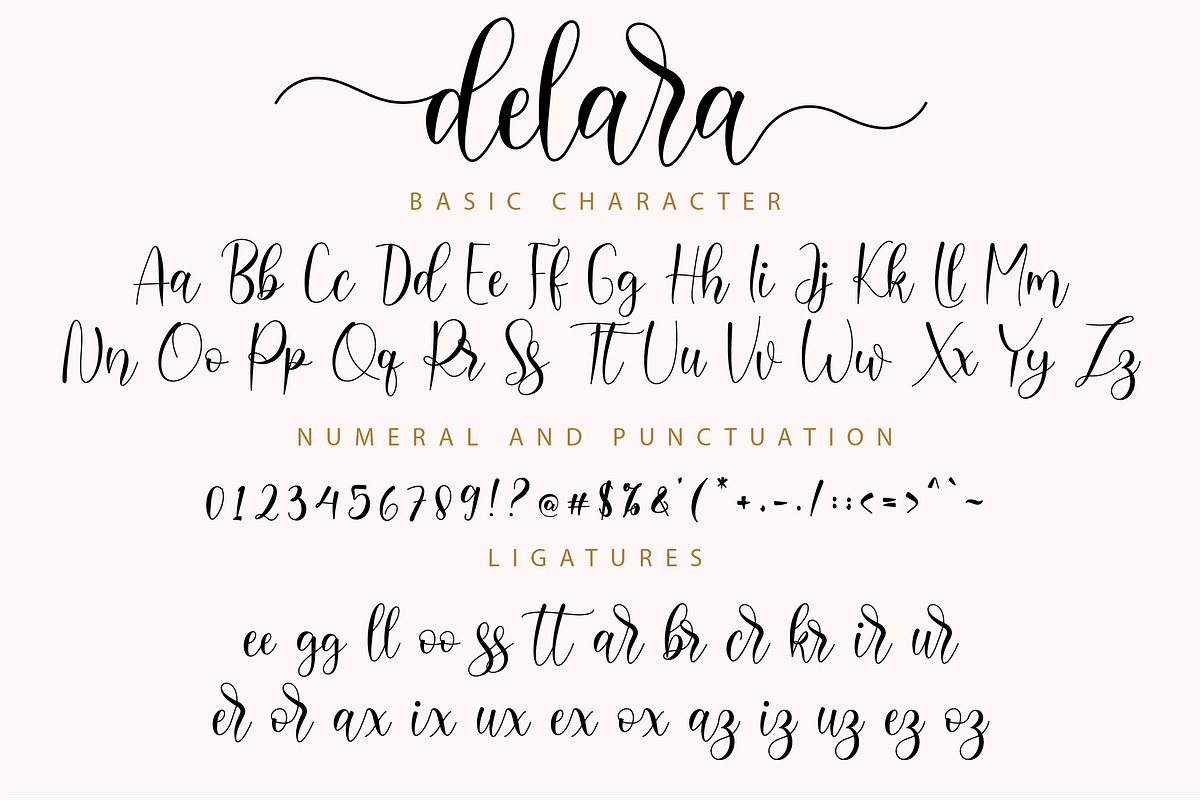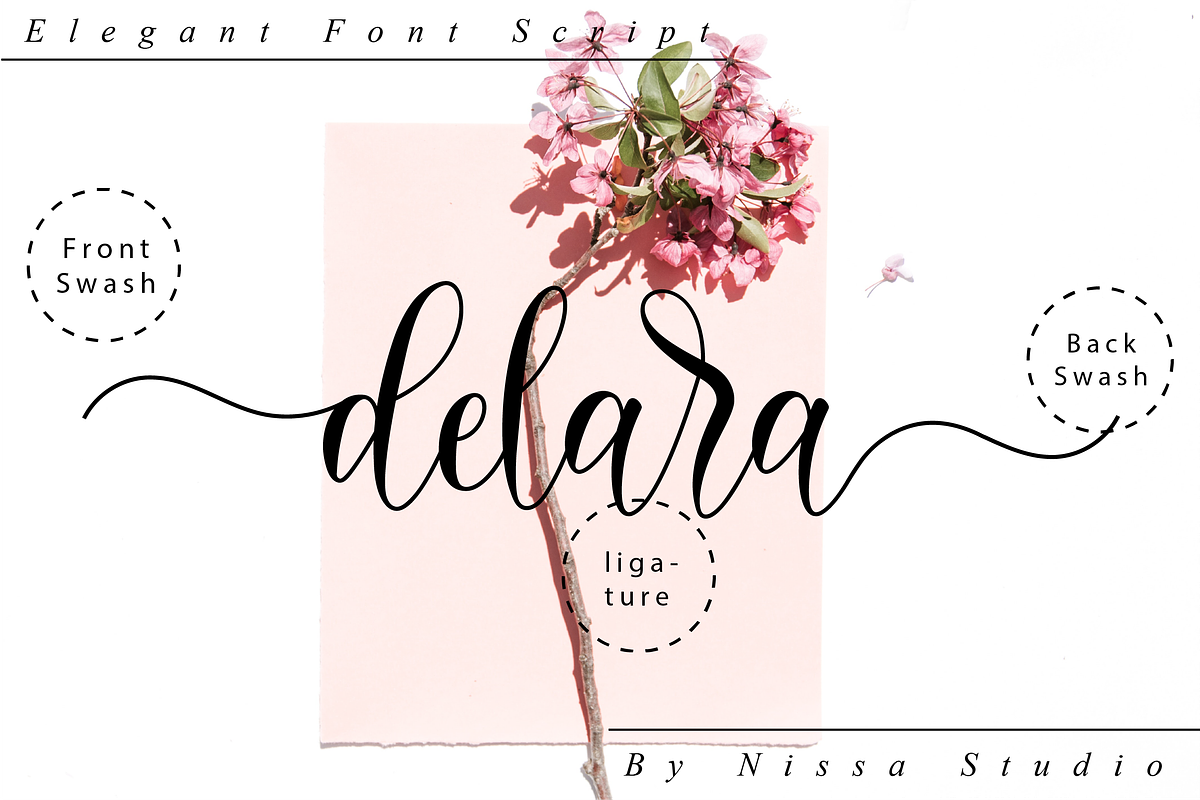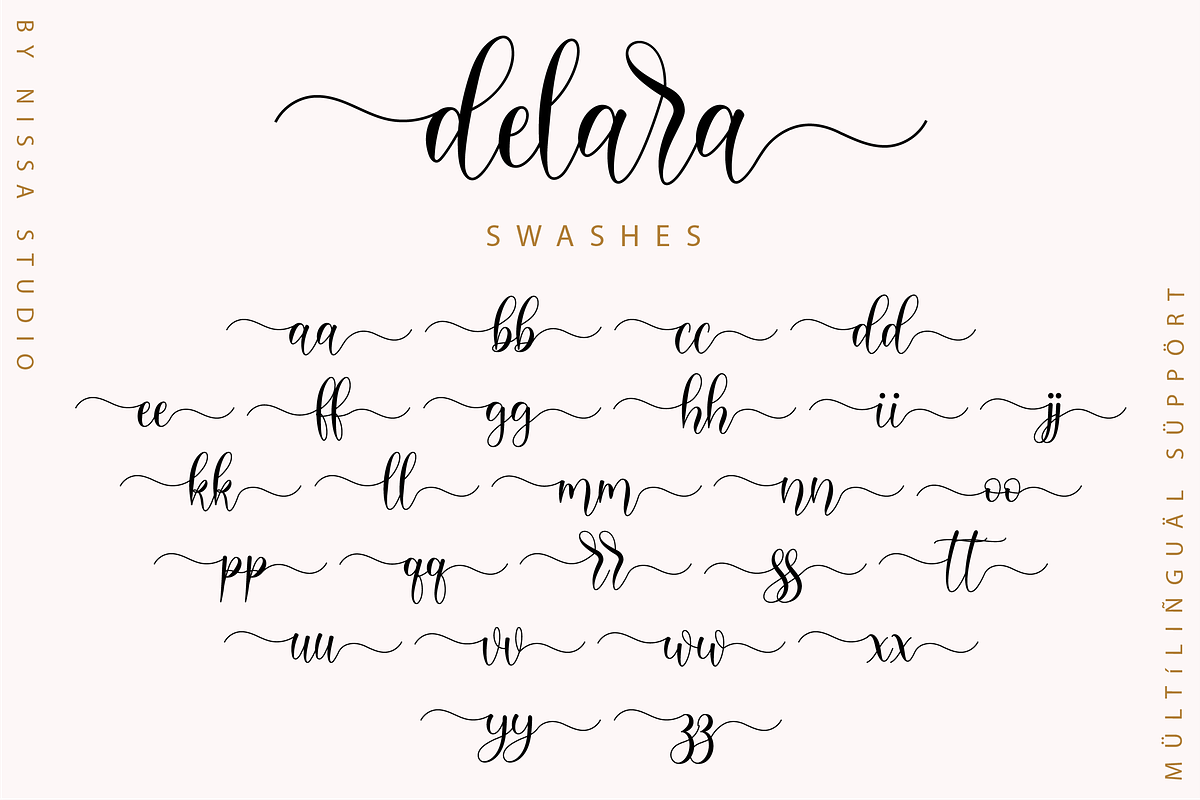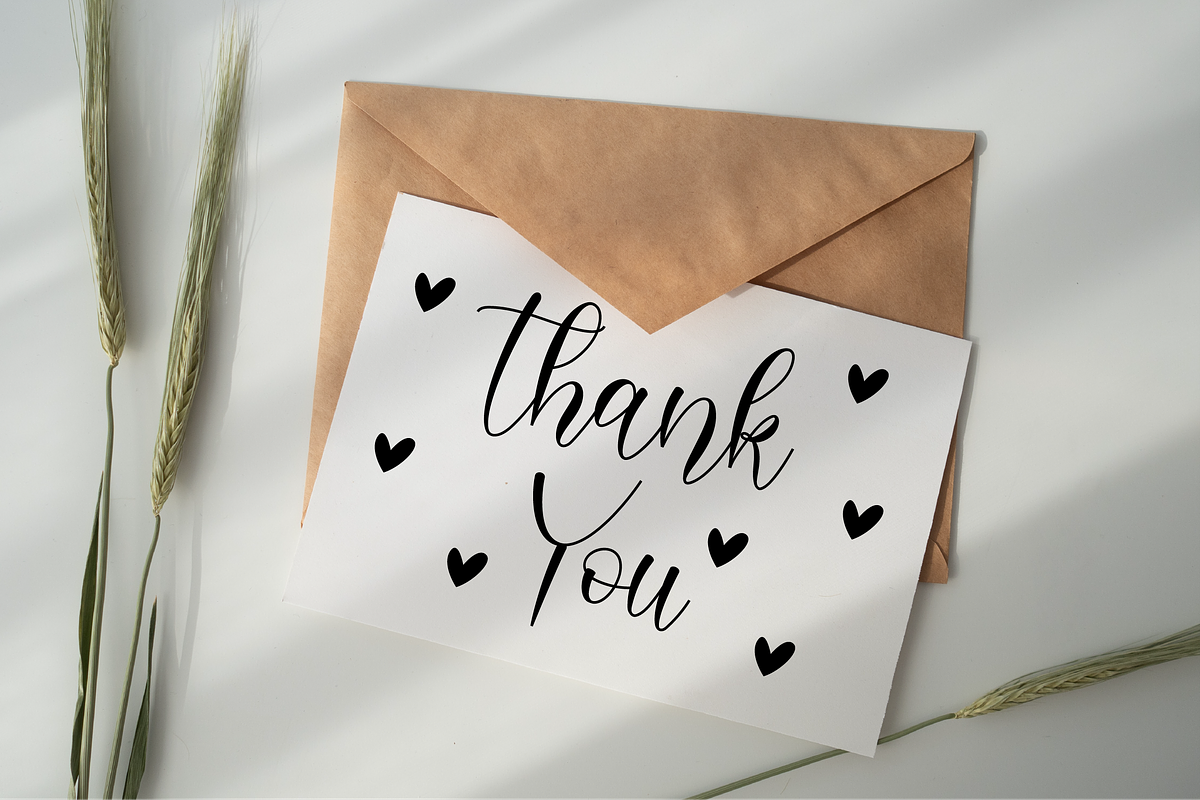
Delara Script
Delara is a beautiful and elegant script font. Its modern and classy look are perfect for logos, branding, invitations, social media posts and every other design that needs a handwritten touch.
- Modern Handwritten Font
- Beautiful Swash (Ending tail)
- Beautiful Titling (Beginning tail)
- Special Ligatures